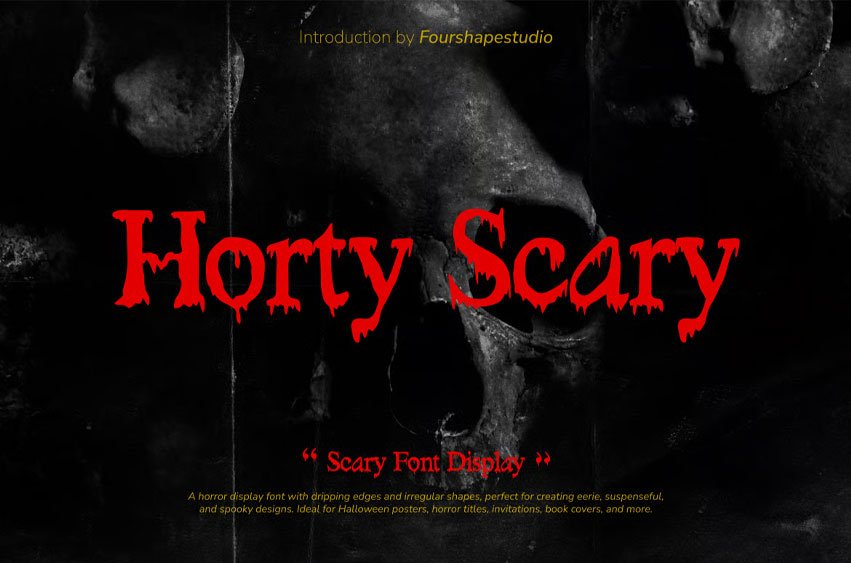
Horty Scary Font handwritten display font with dripping details and irregular strokes, perfect for creating a strong visual impact. Versatile for posters, branding, packaging, invitations, and digital projects, this typeface adds a distinctive and memorable touch to any design.